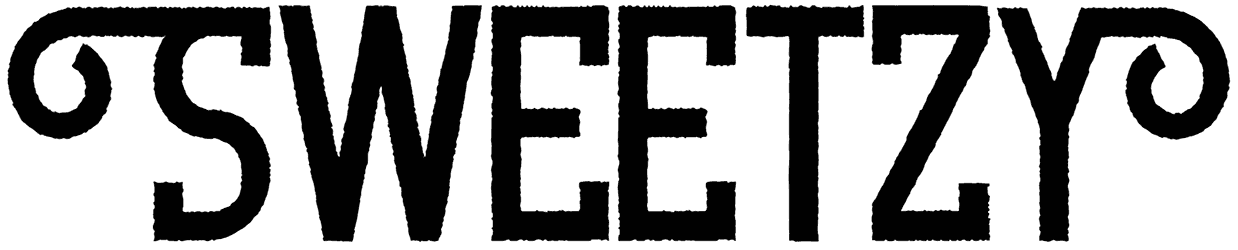
Sweetzy Font
If your design needs to seem antique and original, this retro font can be an apt choice. With a unique and bold form, Sweetzy would be matched with many texts even without lowercase, numbers, and punctuation. This sans-serif font offers two weights and is a nice item for logos, titles, websites, and so on.